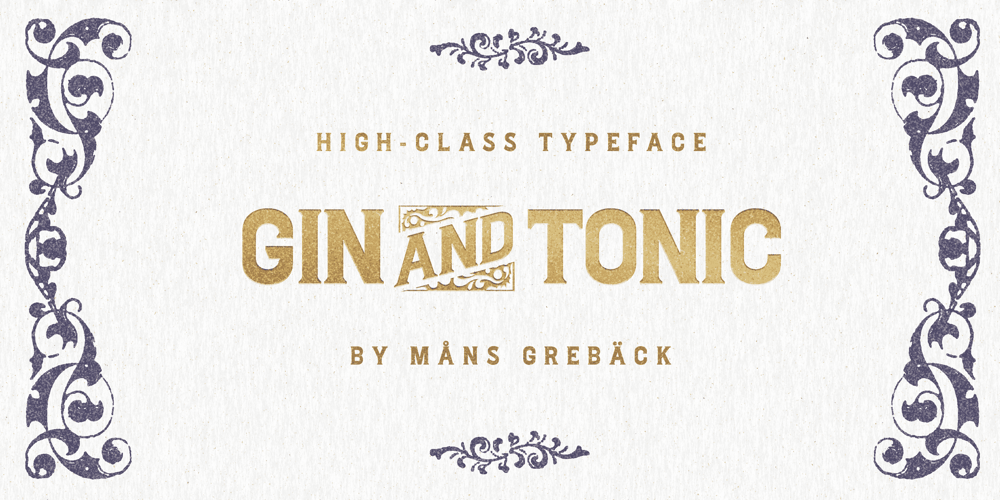
Gin And Tonic Font Family was designed by Måns Grebäck and published by Mans Greback. Gin And Tonic contains 8 styles and family package options. Gin And Tonic is a classical serif typeface family. In a cocktail of soft arches and sharp corners, this traditional type has a multifaceted flavor, just like a well-balanced drink. Inspired by turn-of-the-century quality produce, Gin And Tonic is a genuine victorian typeface, that brings class and authenticity to any graphic project. The type of lettering that could be seen in an old-west saloon. This serif font is provided in eight styles: Thin, Regular, Bold and Thin Italic, Regular Italic, Bold Italic. As well as the Outlined style and its complementary Outline Italic. Write in CAPS for decorative conjunction words. Example: Gin AND Juice, Bird OF Prey(Download required.)The font is built with advanced OpenType functionality and has a guaranteed top-notch quality, containing stylistic and contextual alternates, ligatures and more features; all to give you full control and customizability. It has extensive lingual support, covering all Latin-based languages, from North Europe to South Africa, from America to South-East Asia. It contains all characters and symbols you’ll ever need, including all punctuation and numbers.